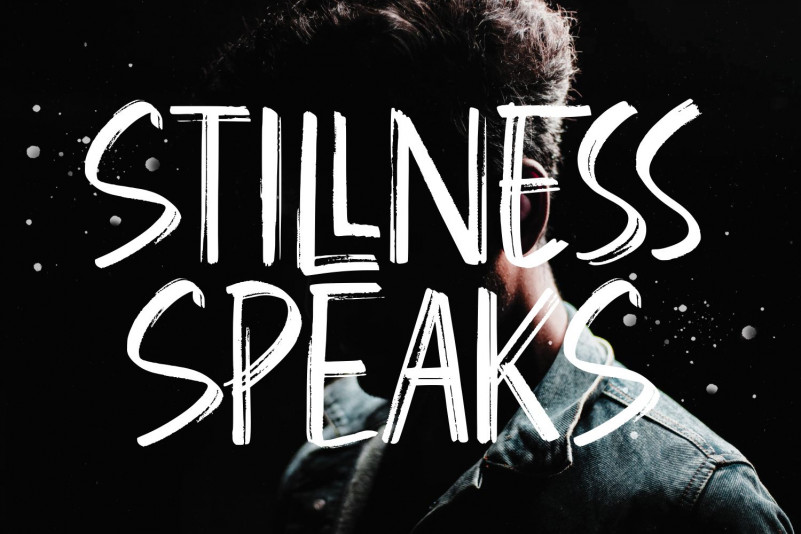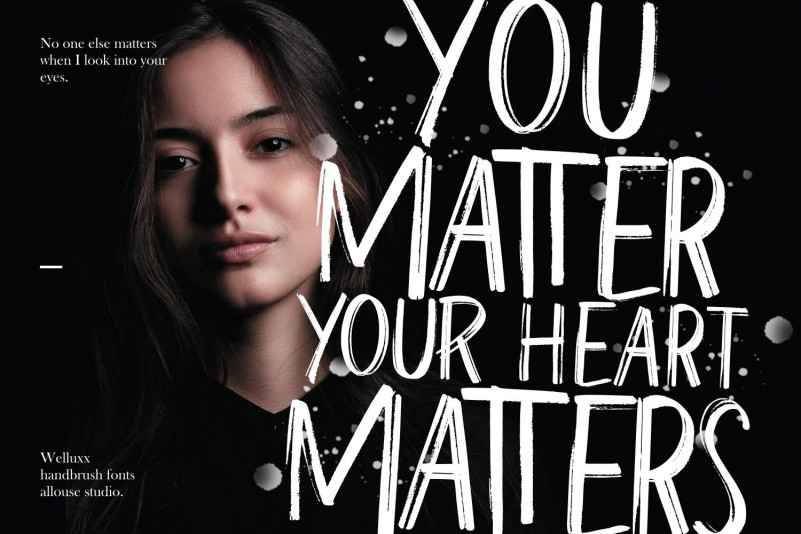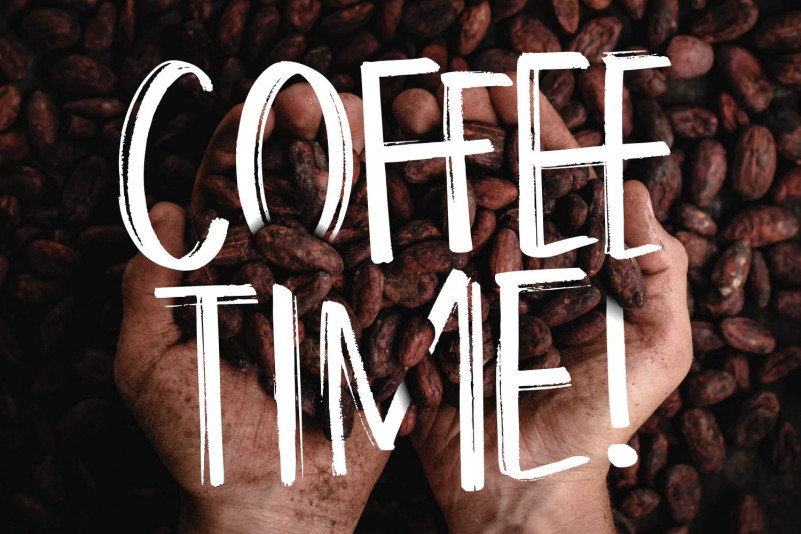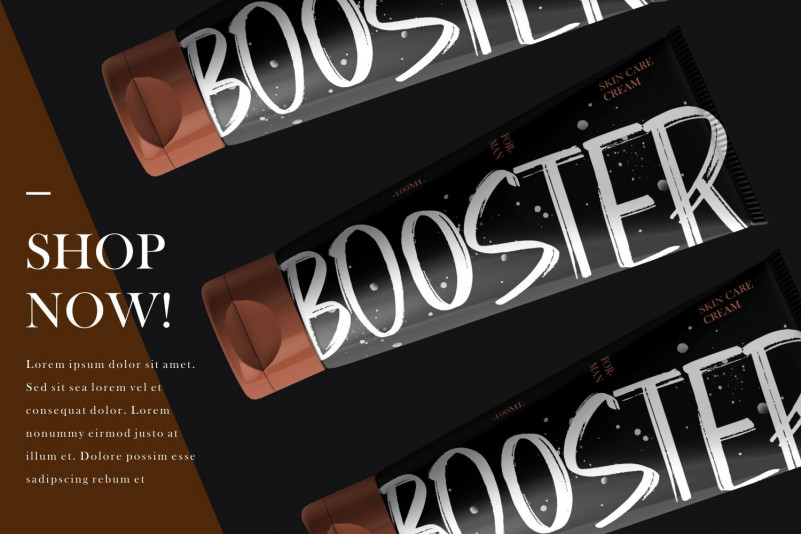
Welluxx Font
Welluxx Brush Font
This is a modern and stylish display font. With a cursive style and a cool vibe, this font is perfect for product packaging, branding project, magazine, social media, weddings, or just used to express words above the background.